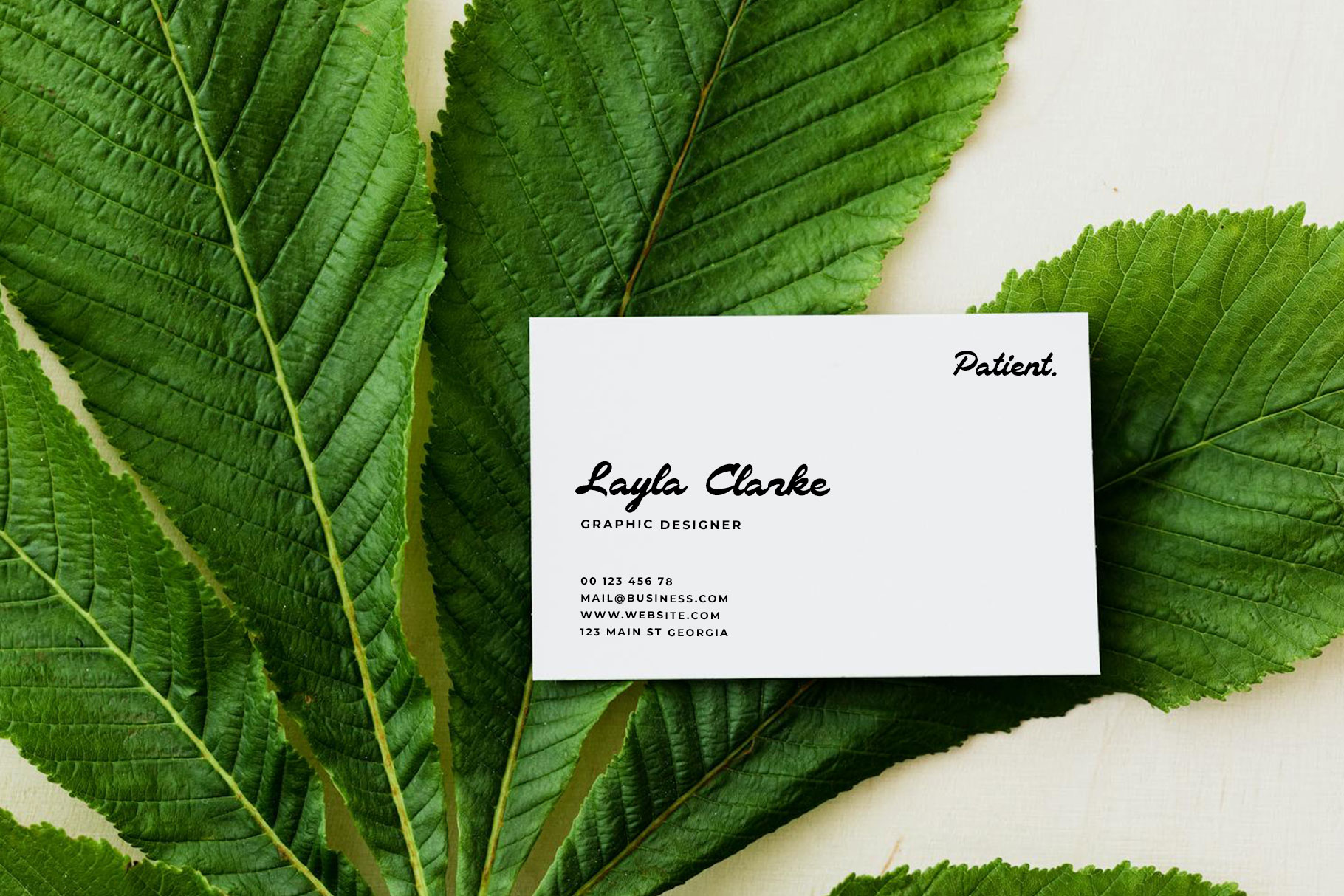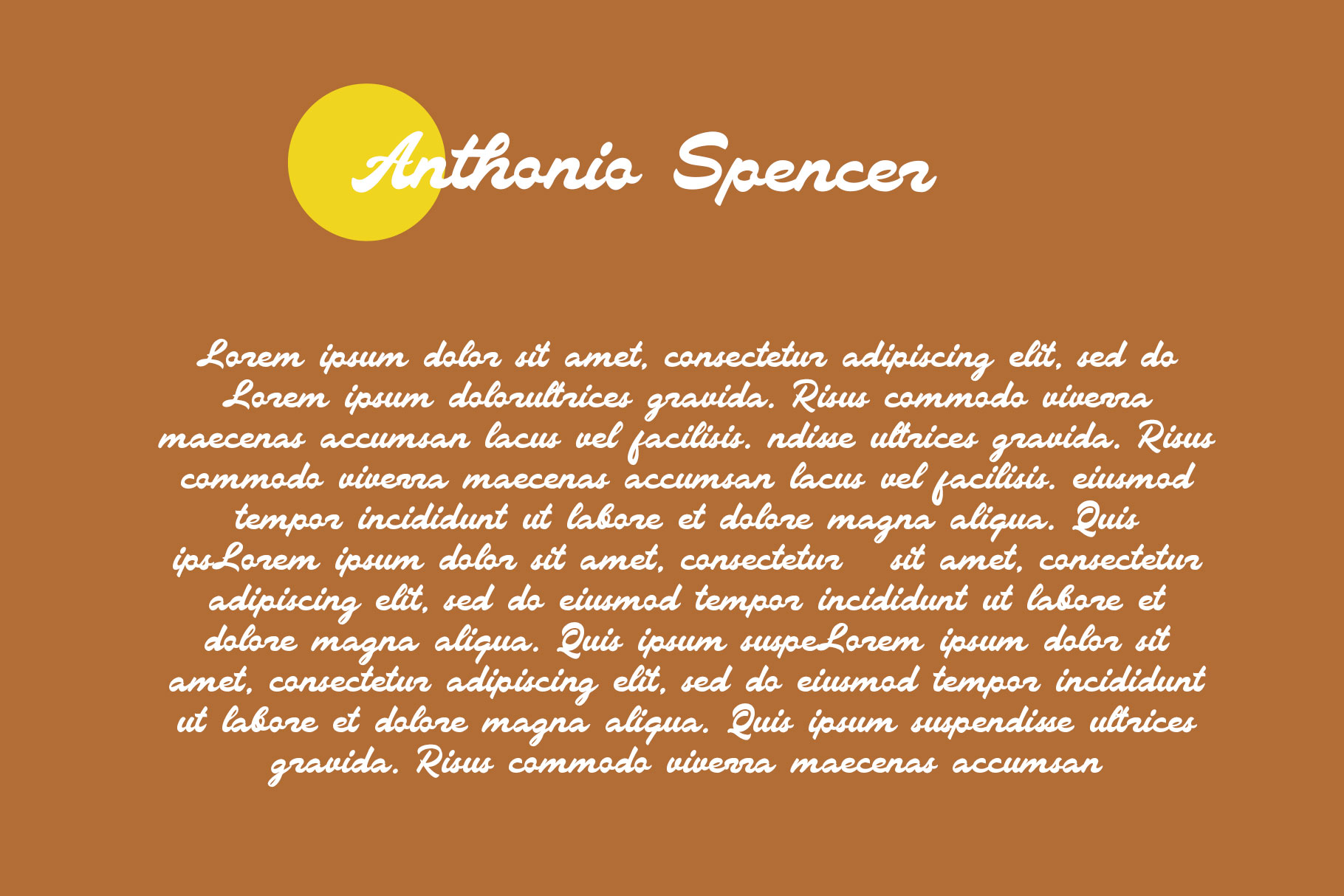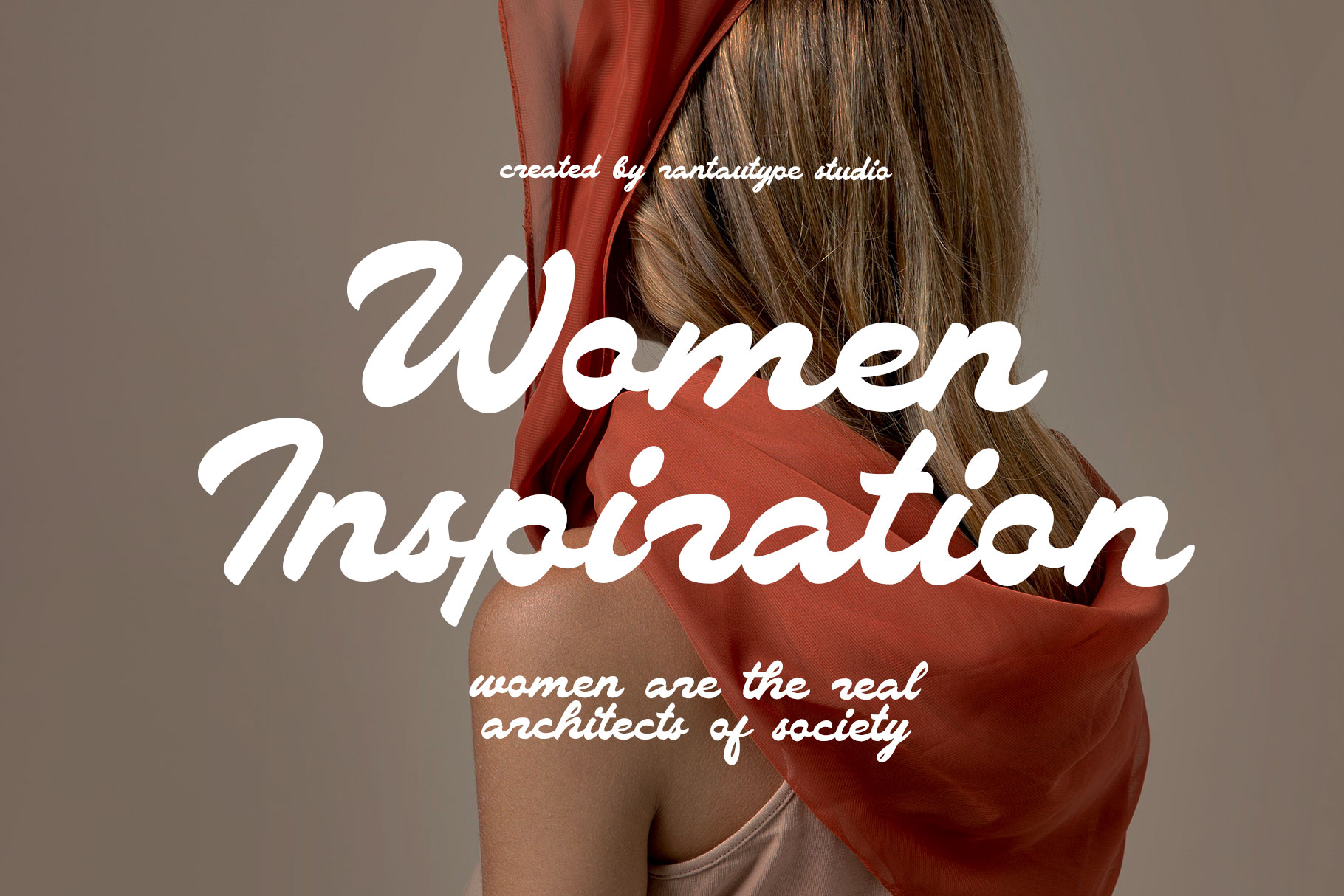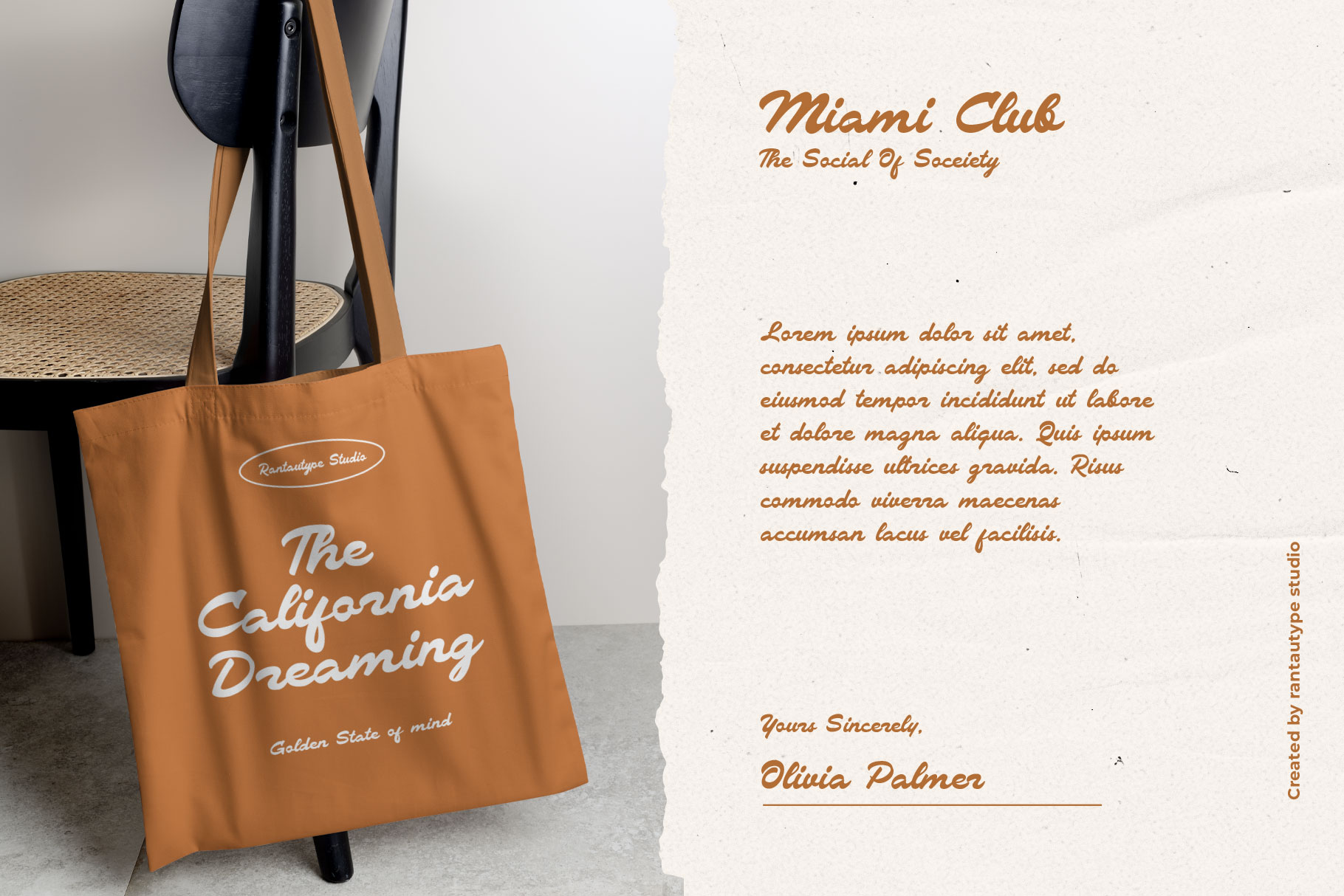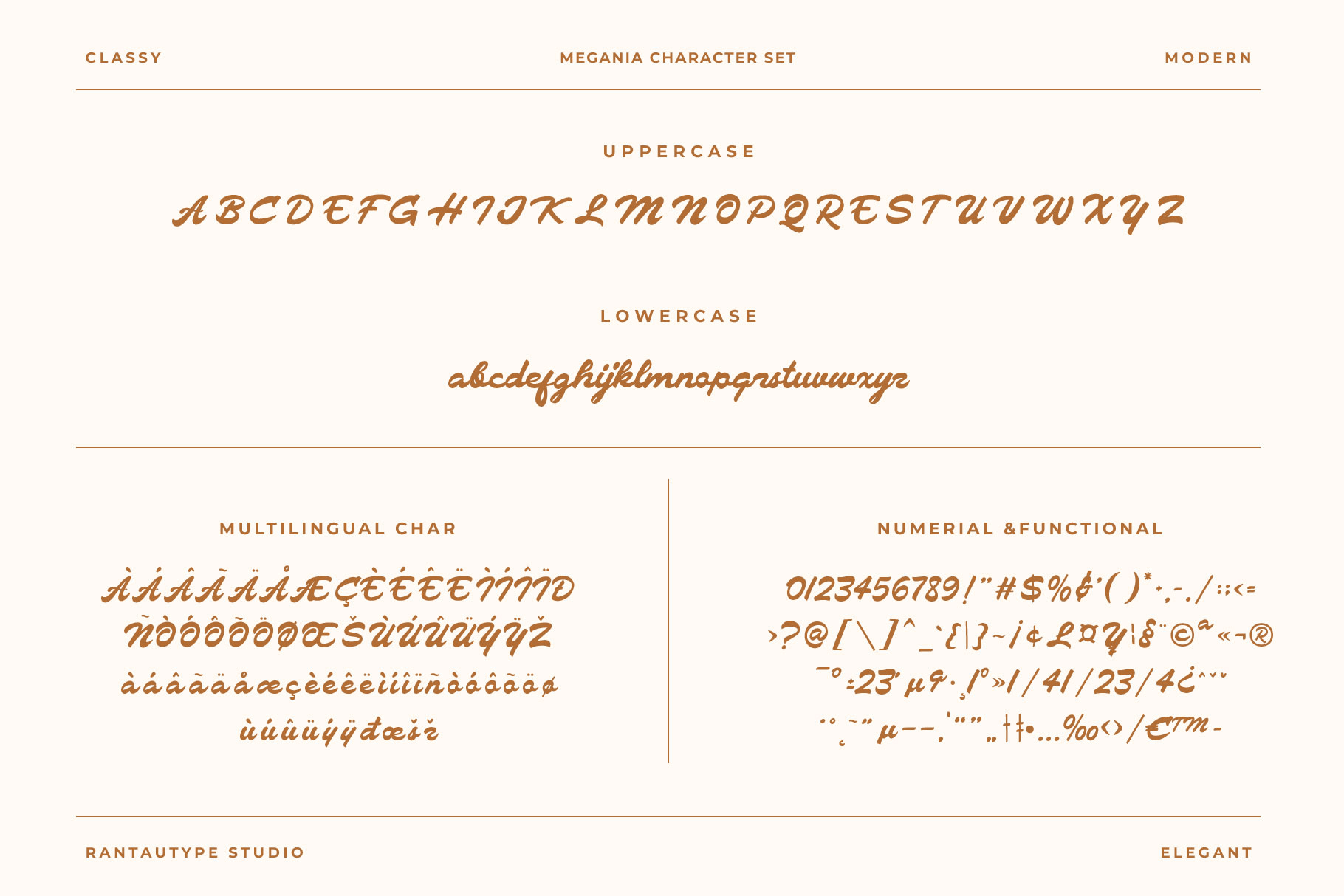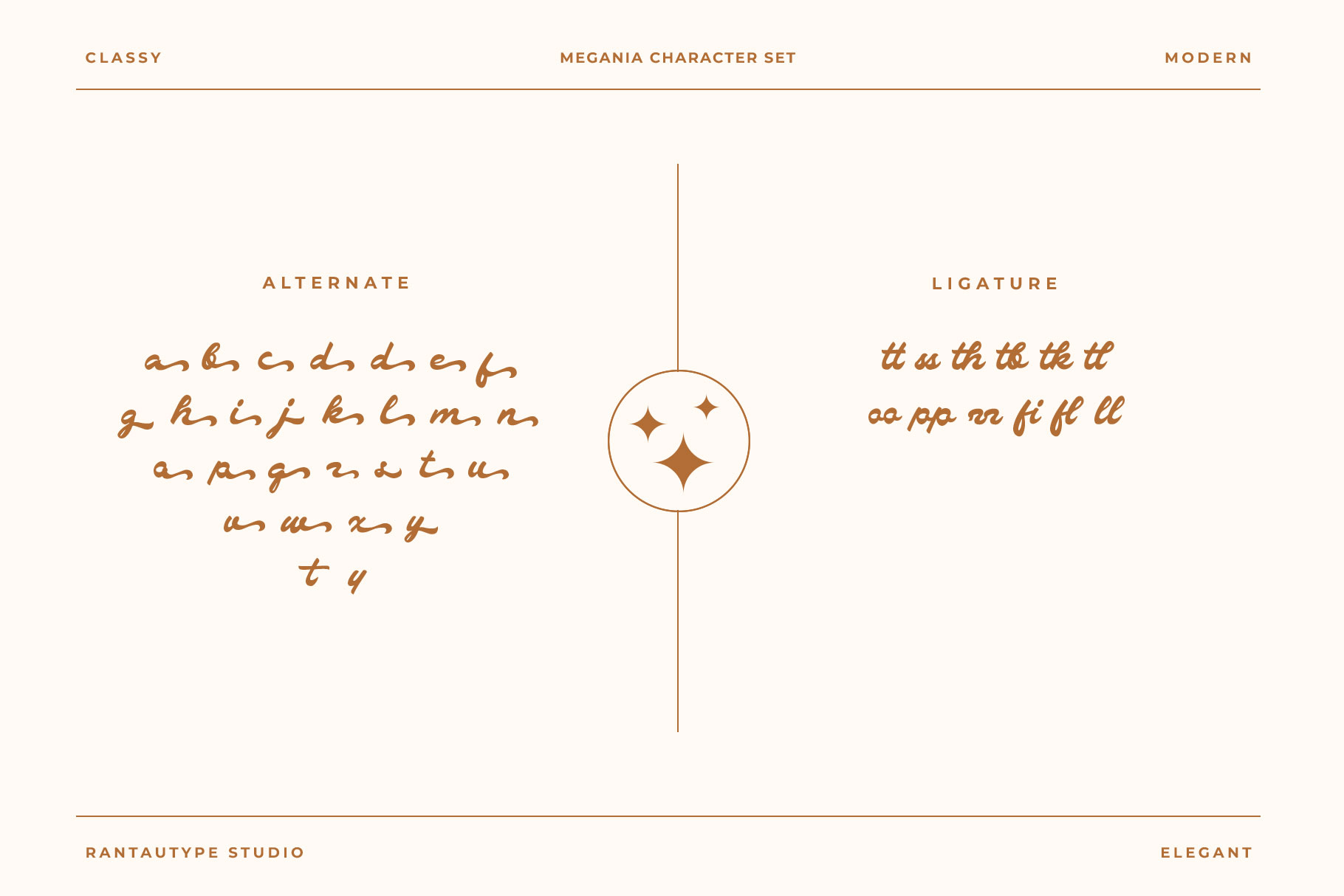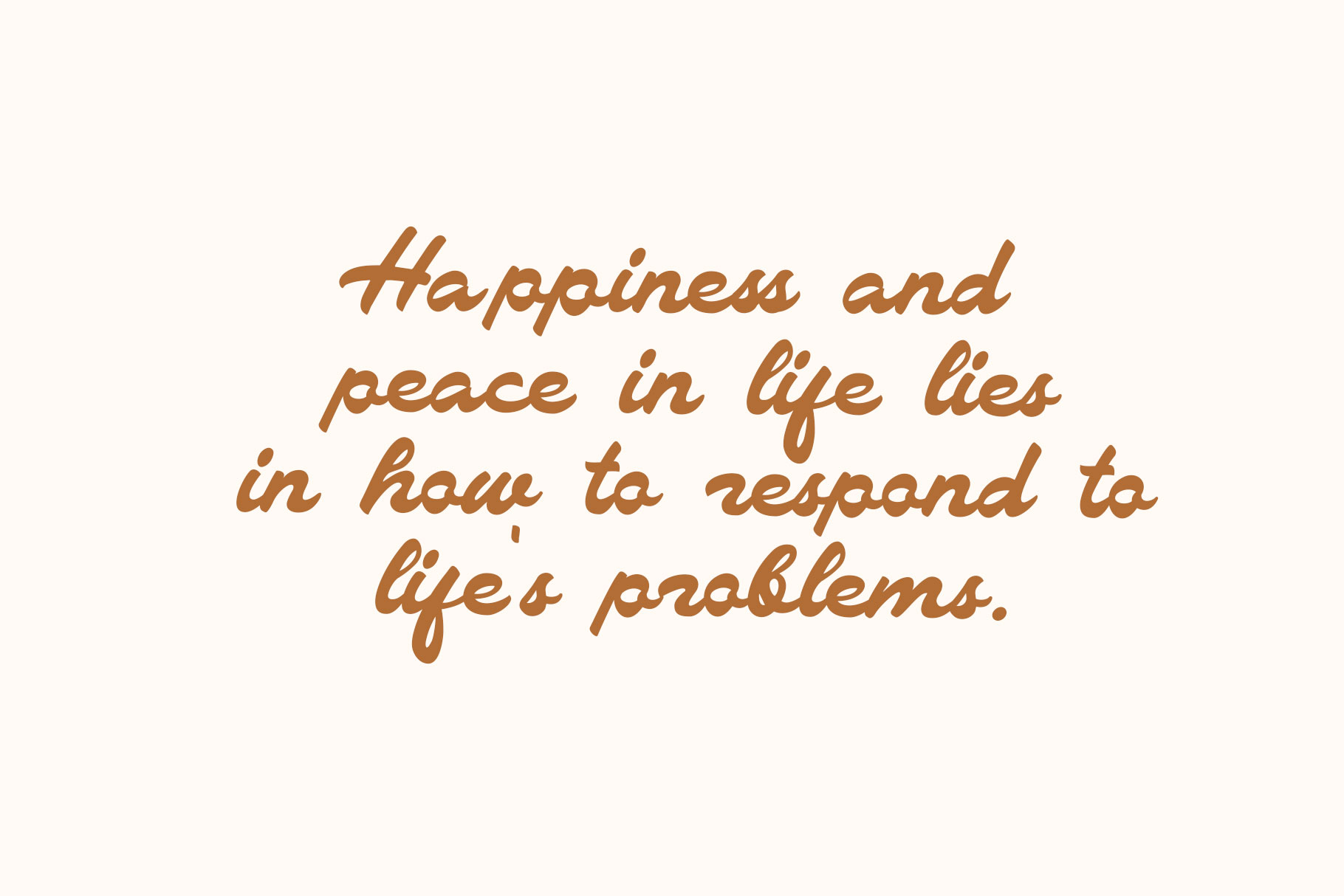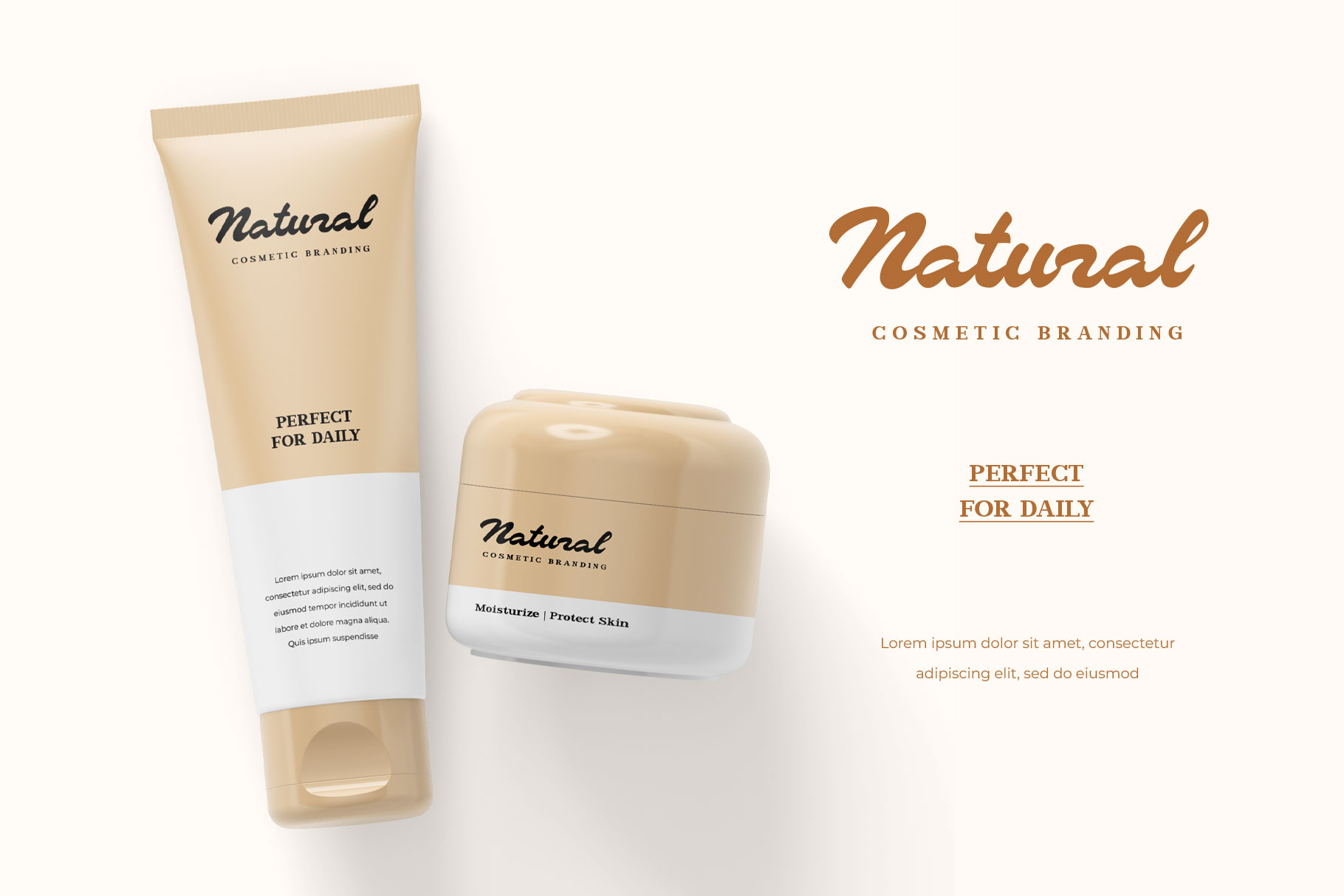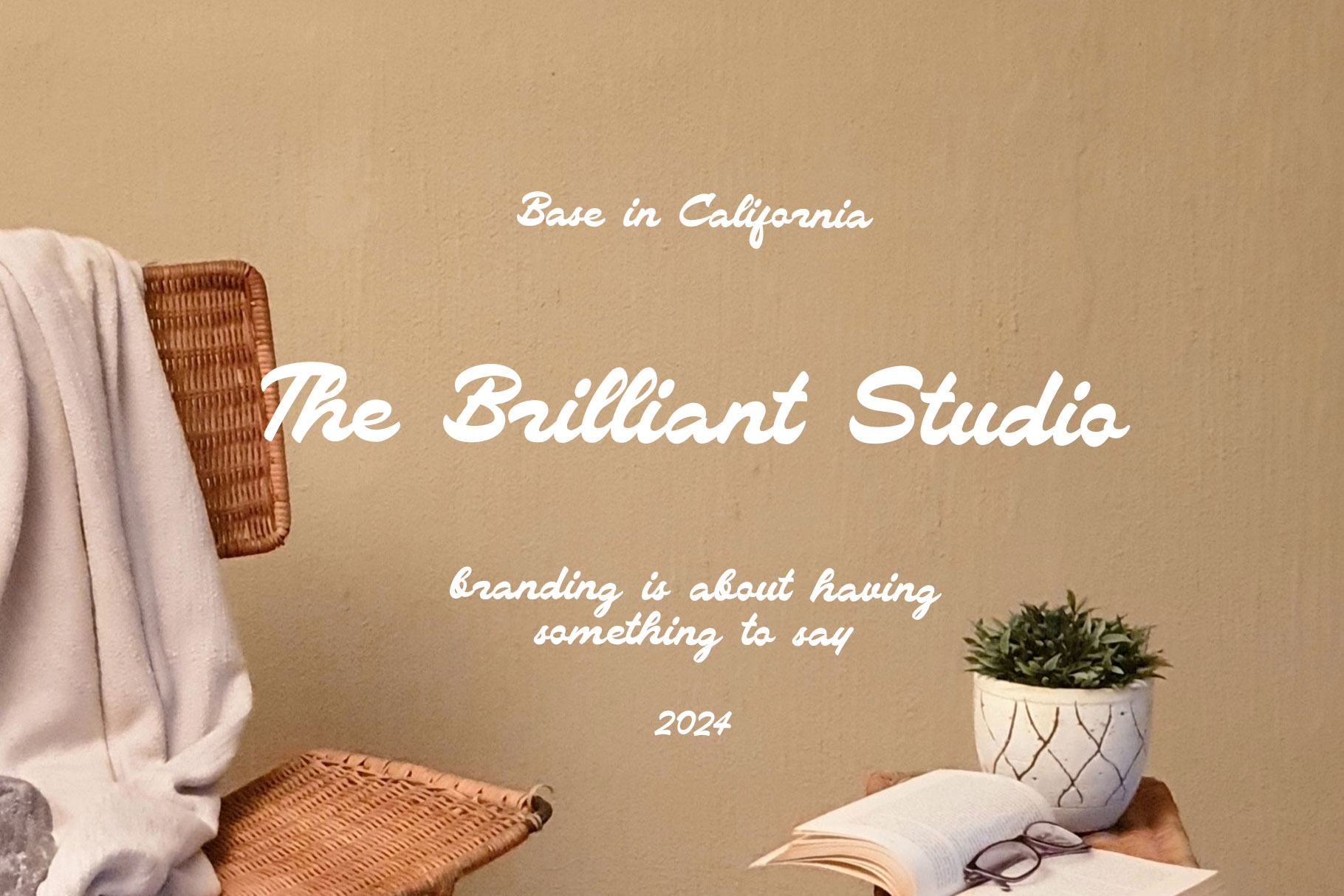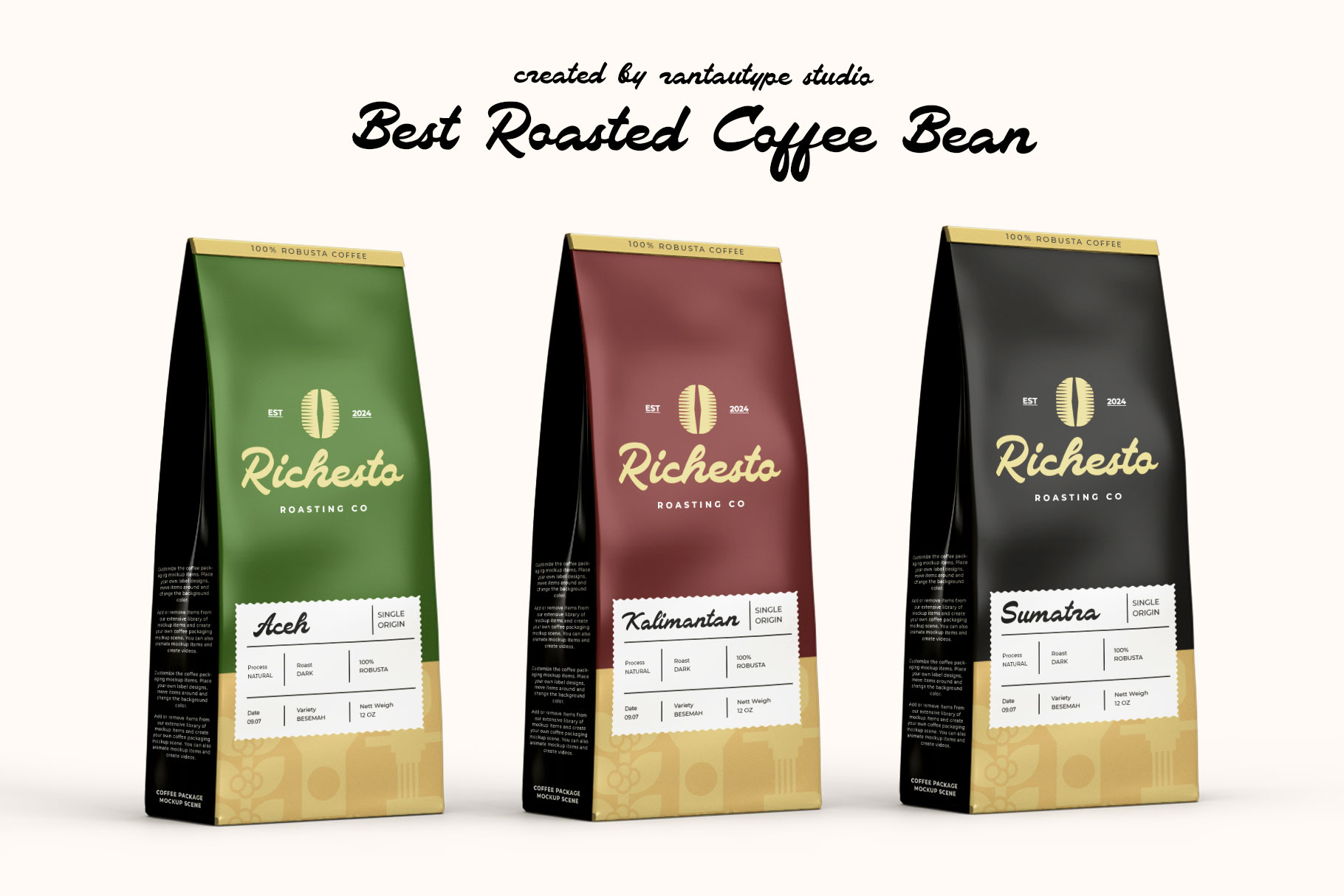
Megania Brush Script Font
Megania is contrast brush script font with urban and pop culture. Megania formed from smooth curves and casual vibes Megania can bring you to make awesome design and make your brand stand out.
Megania  is perfectly choice for any creative endeavor, chic, lifestyle design such as logos, title, watermark on photography, cover, branding, display and magazine, wedding event, corporate brand, quotes, album cover, business card, business project and many other design project with handwritten taste.